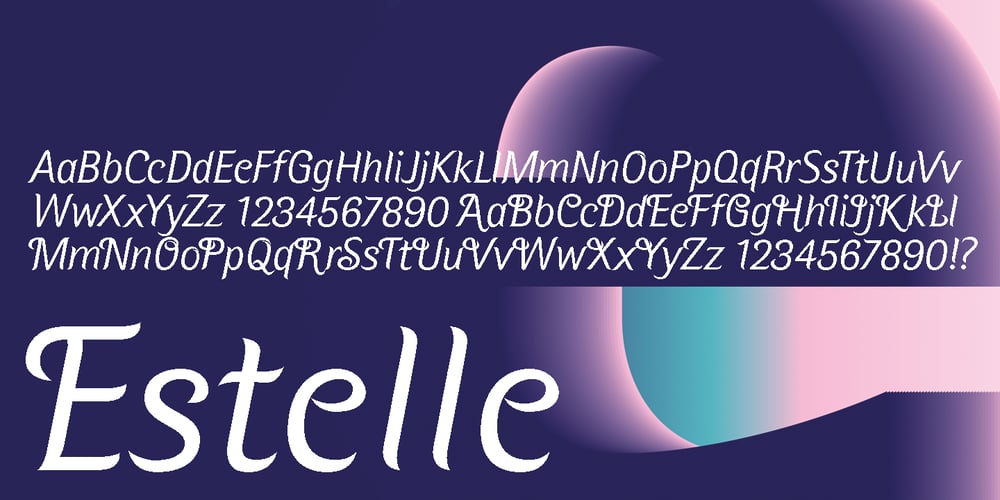
Estelle
Estelle font
Estelle Font Family was designed by Gert Wiescher and published by Wiescher Design. Estelle contains 4 styles and family package options. Estelle is a surprisingly new typeface with a script character. Another unusual typeface by your designer of elegant fonts, Gert Wiescher